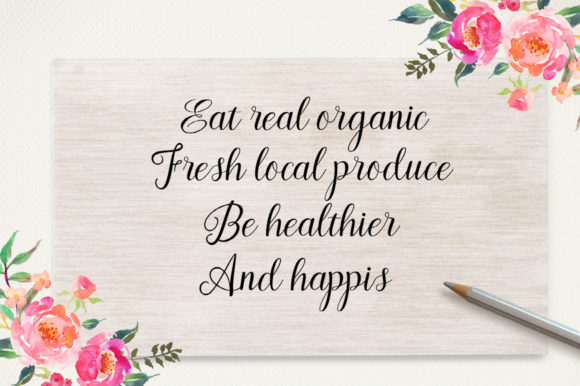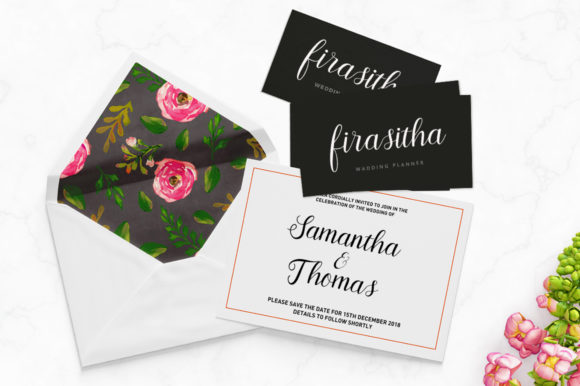
Angelia Script Font
db-ku.com - Script & Handwritten -- The Angelia is a modern script font. It has an irregular baseline and a trendy and feminine style.